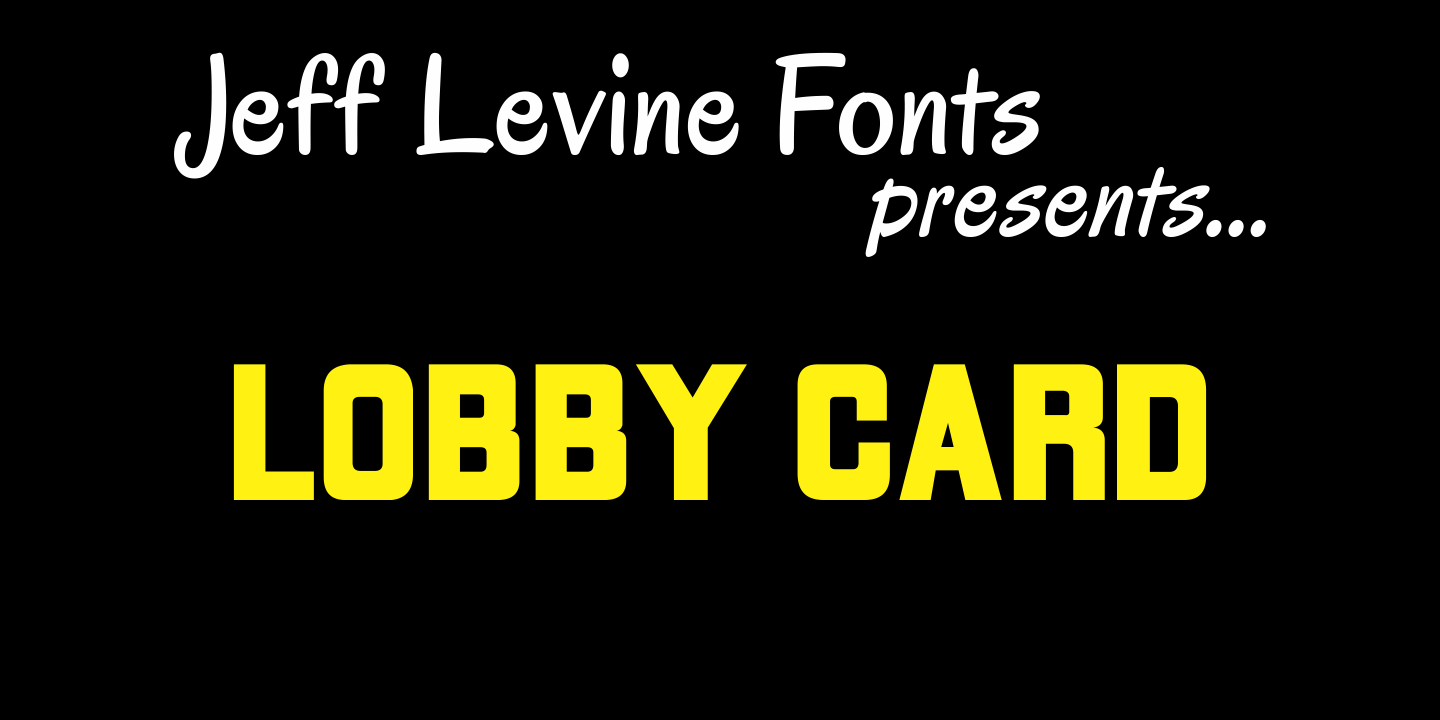
Lobby Card
Lobby Card JNL takes the limited characters of Theatrics JNL, removes the prismatic effect and expands the font into an extended character set for a multitude of uses.
Lobby Card JNL Regular by Jeff Levine Fonts